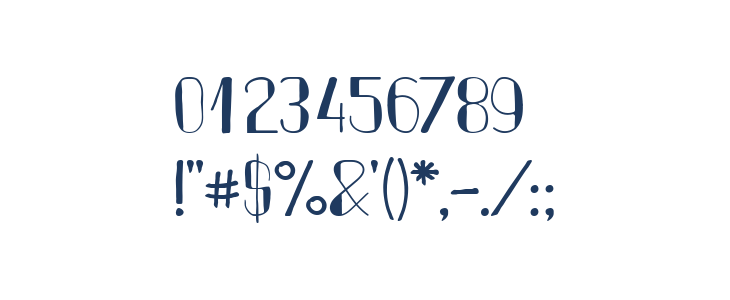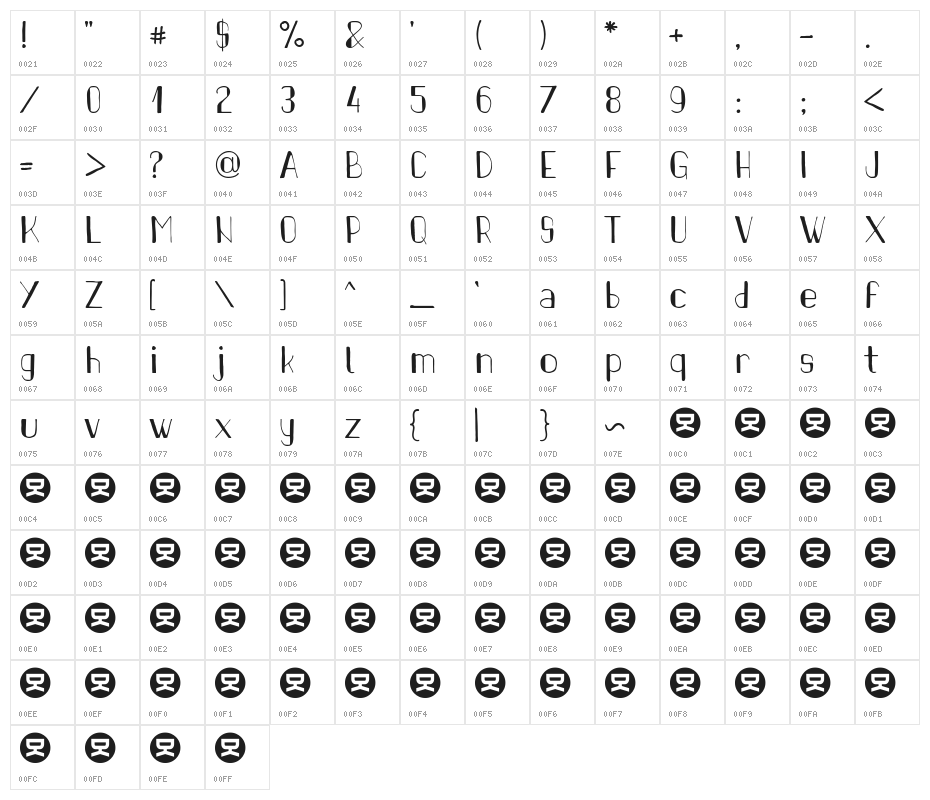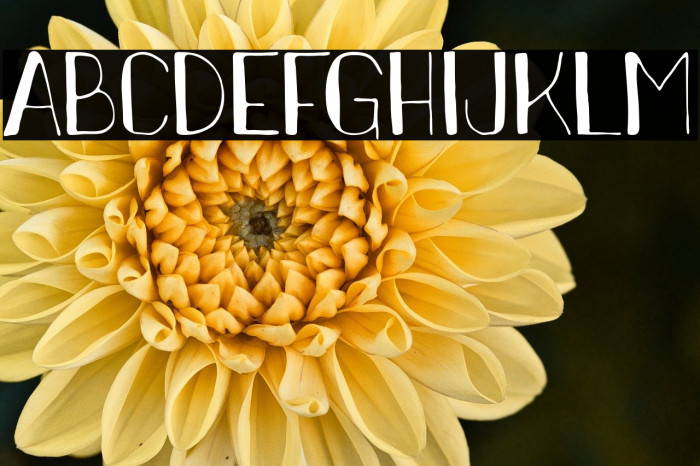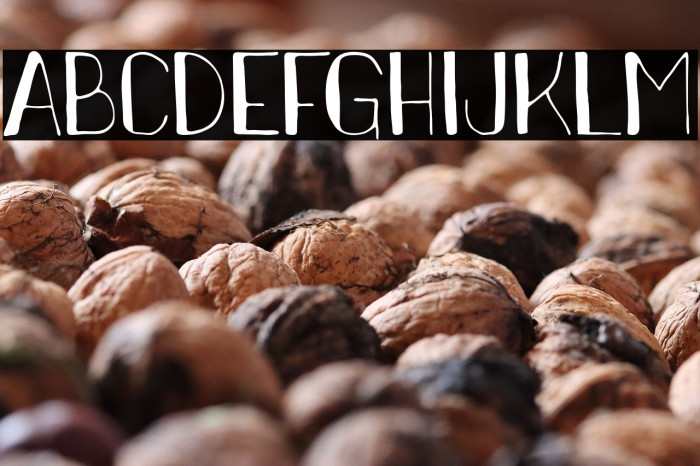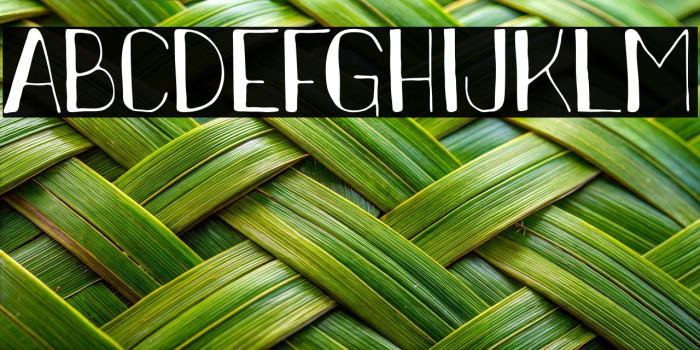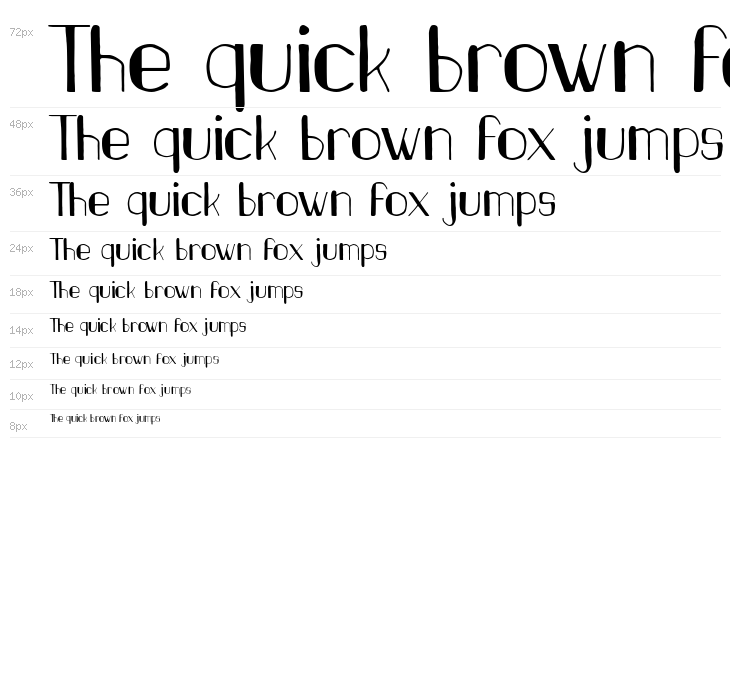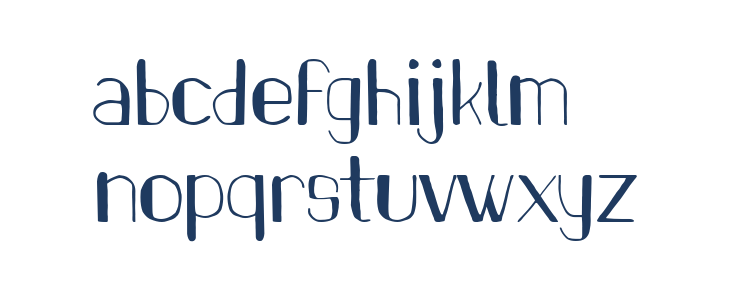
Pinon Font
Pinon Description
This font features a unique blend of modern and vintage styles, characterized by its tall, narrow letterforms and a mix of thick and thin strokes. The uppercase letters are bold and striking, while the lowercase letters maintain a more delicate appearance. The numerals are distinct and easily readable, with a playful yet sophisticated flair. Special characters are creatively designed, adding to the font's overall charm. This typeface stands out with its artistic flair, making it suitable for a variety of creative projects.
| Width | Condensed |
| Overall Style | Modern, Vintage |
| Proposed Projects | Ideal for branding, posters, invitations, and artistic projects that require a distinctive and stylish touch. |